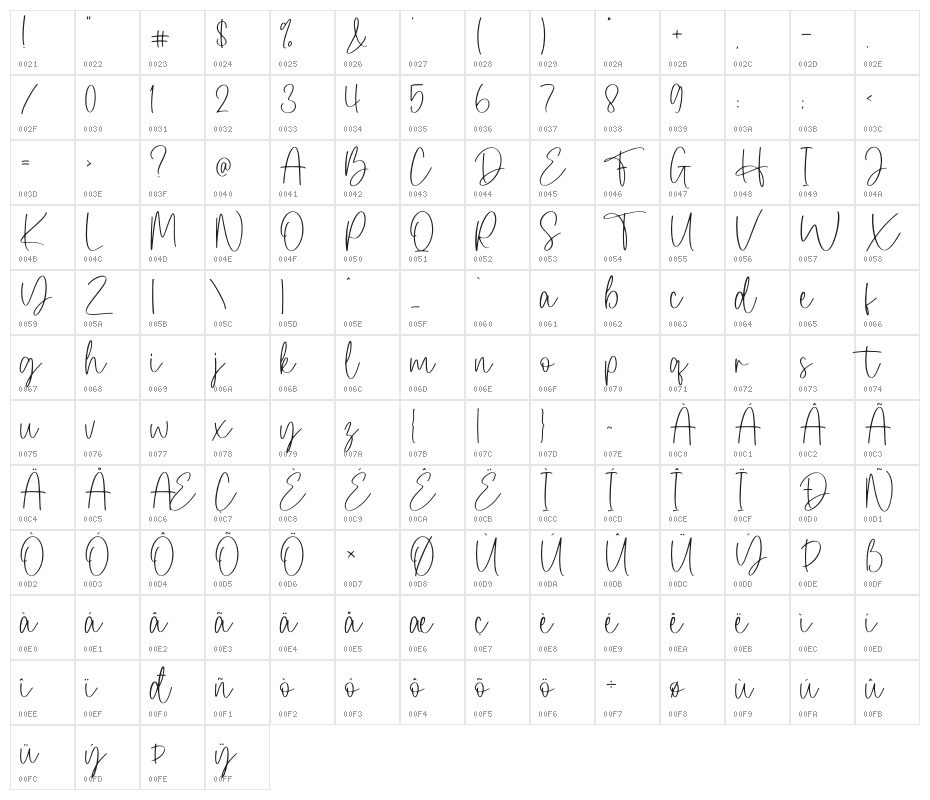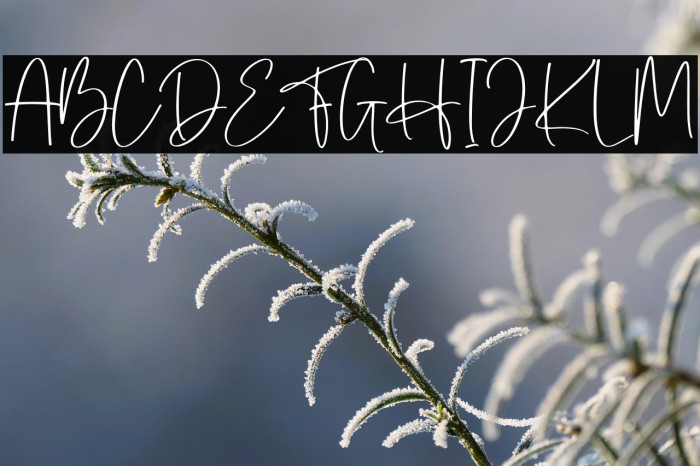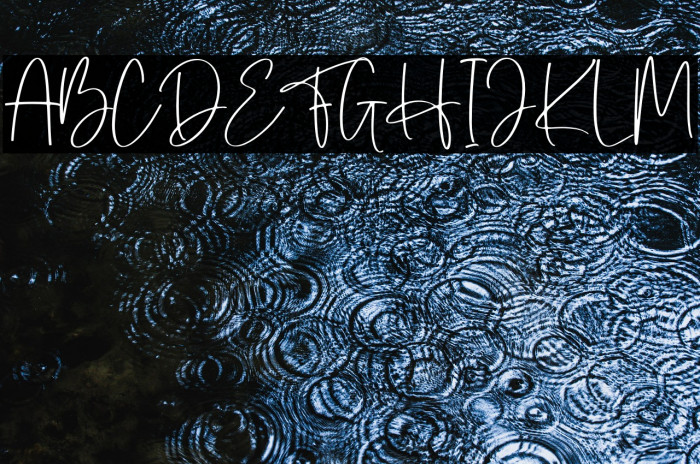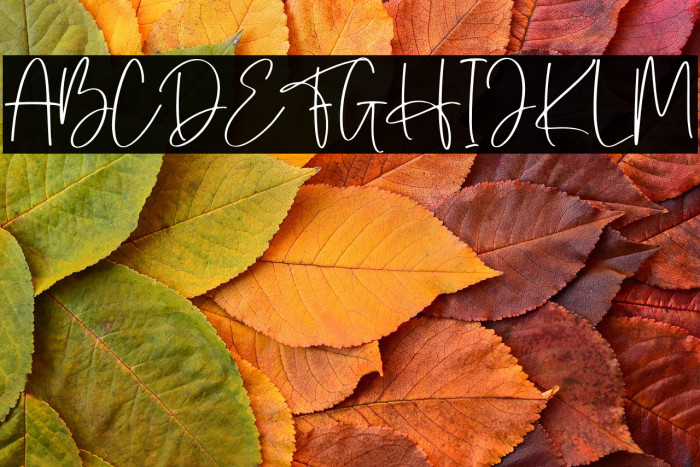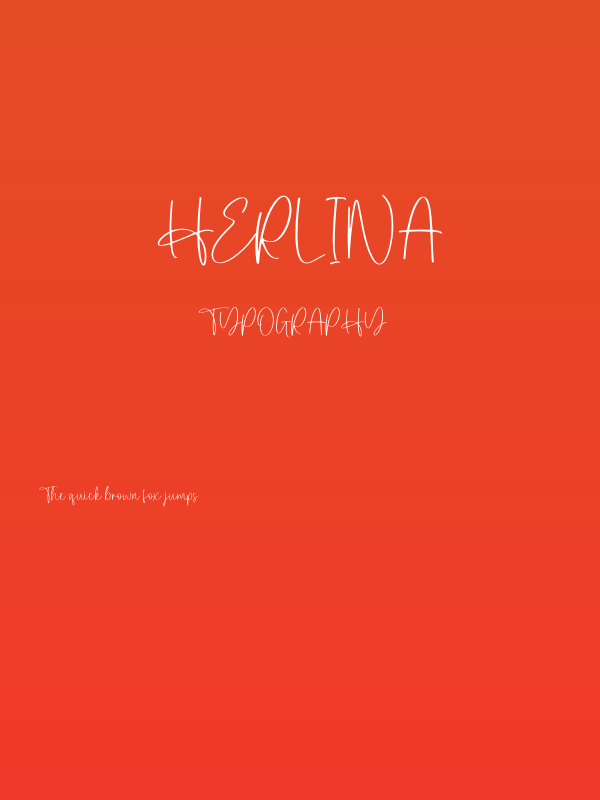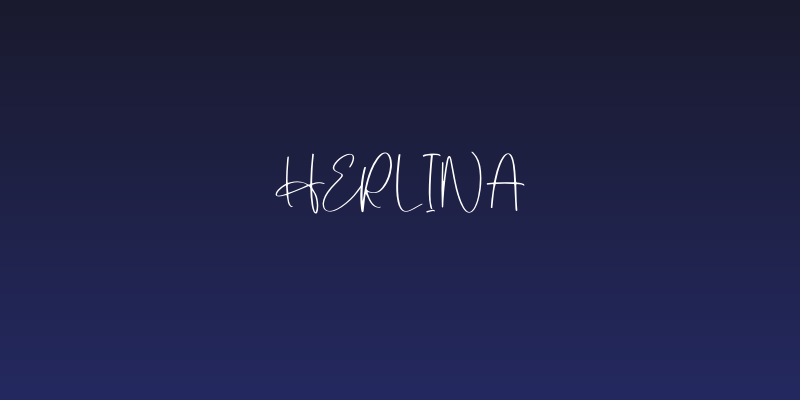
Herlina Font
Herlina Description
This font exudes a casual and playful handwritten style, characterized by its fluid and continuous strokes that mimic natural handwriting. The letters are slightly slanted, adding a dynamic and lively feel to the text. The uppercase and lowercase letters maintain a consistent style, with smooth curves and loops that enhance its informal appearance. The numerals and special characters are crafted with the same attention to detail, ensuring uniformity across all glyphs. This font's charm lies in its ability to convey a personal touch, making it ideal for projects that require a human element.
Overall StyleCasual, Playful
Use CaseLogos, Headlines, Invitations
Proposed ProjectsIdeal for personal invitations, greeting cards, casual branding, and social media graphics.